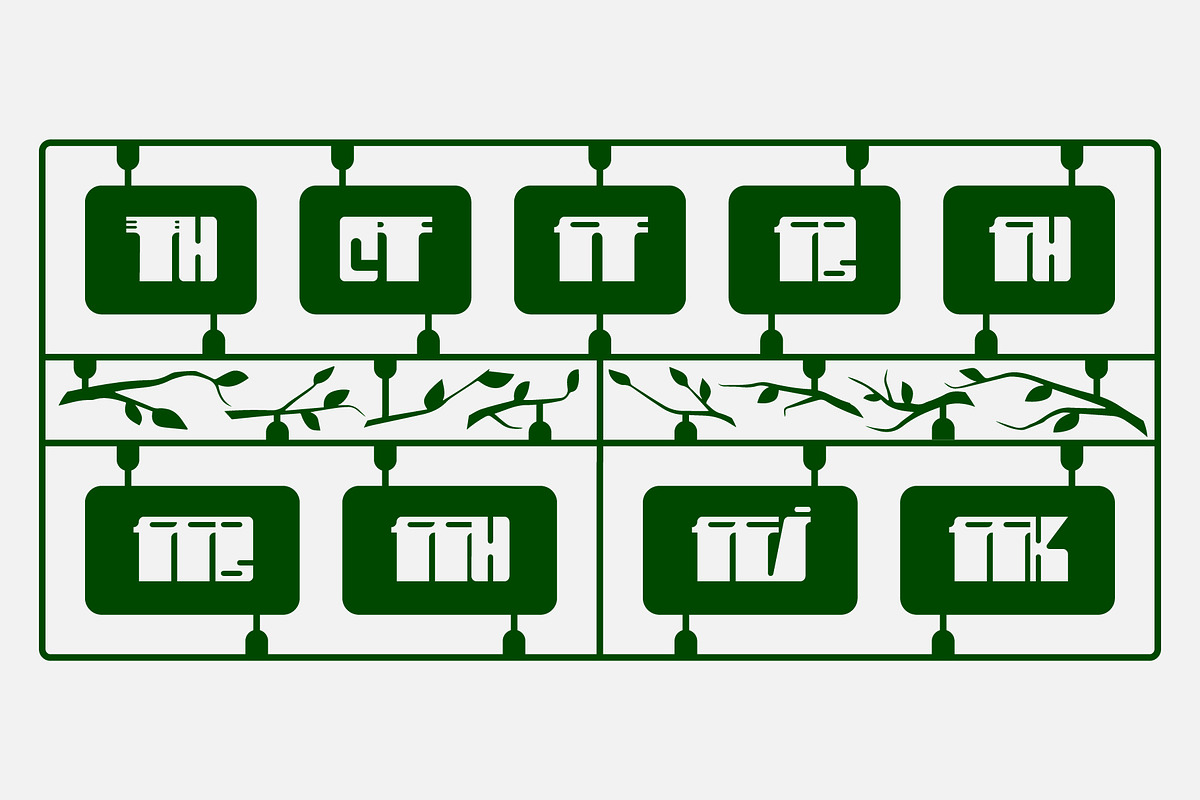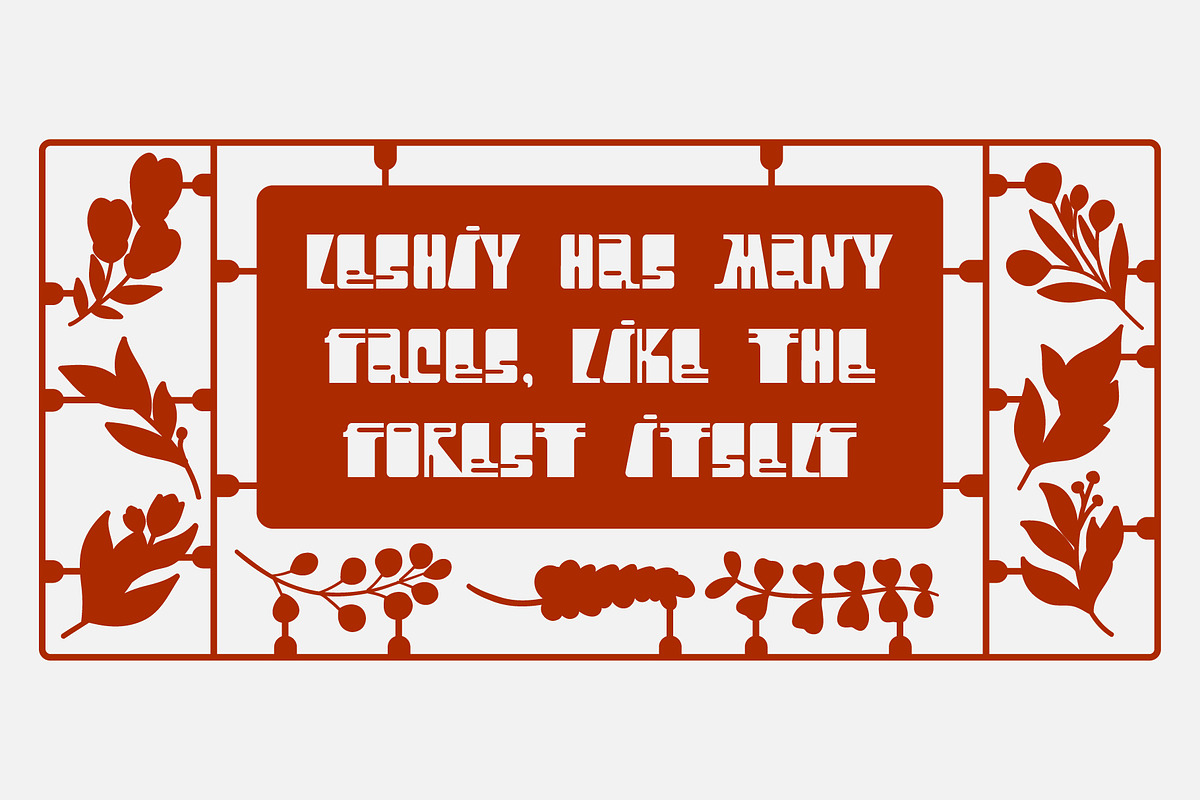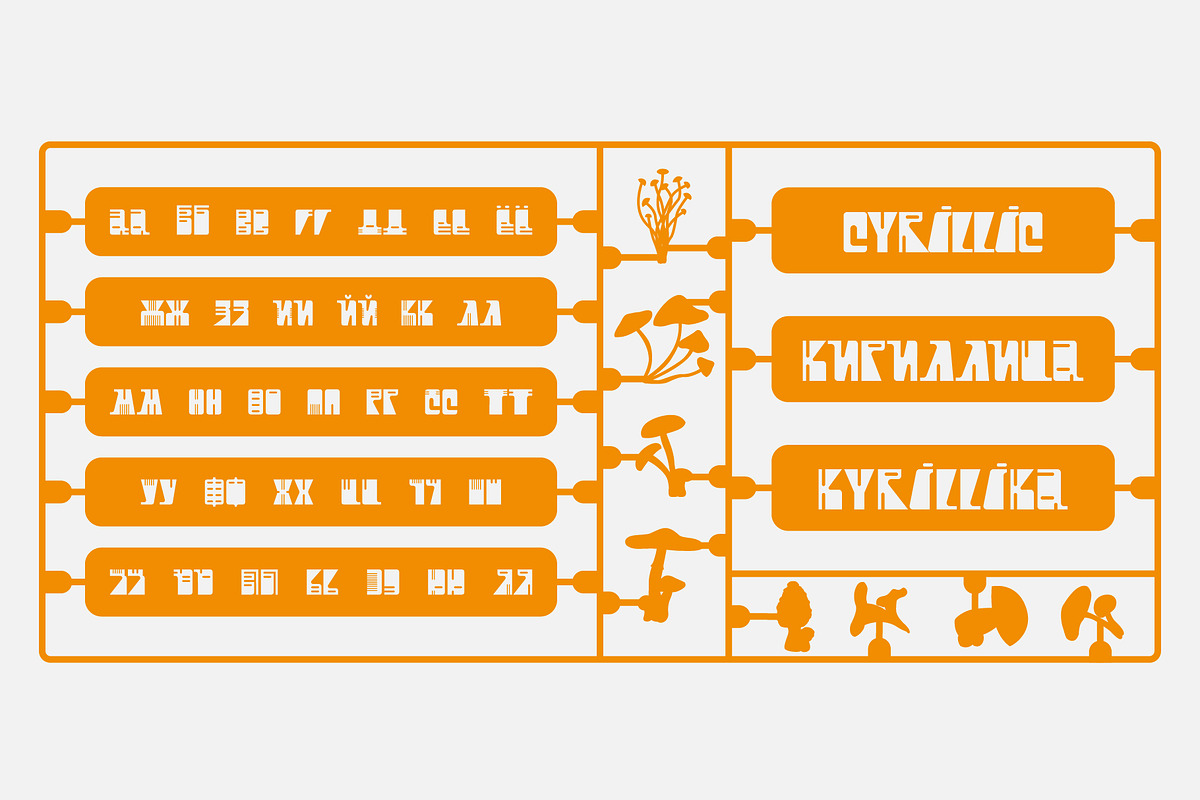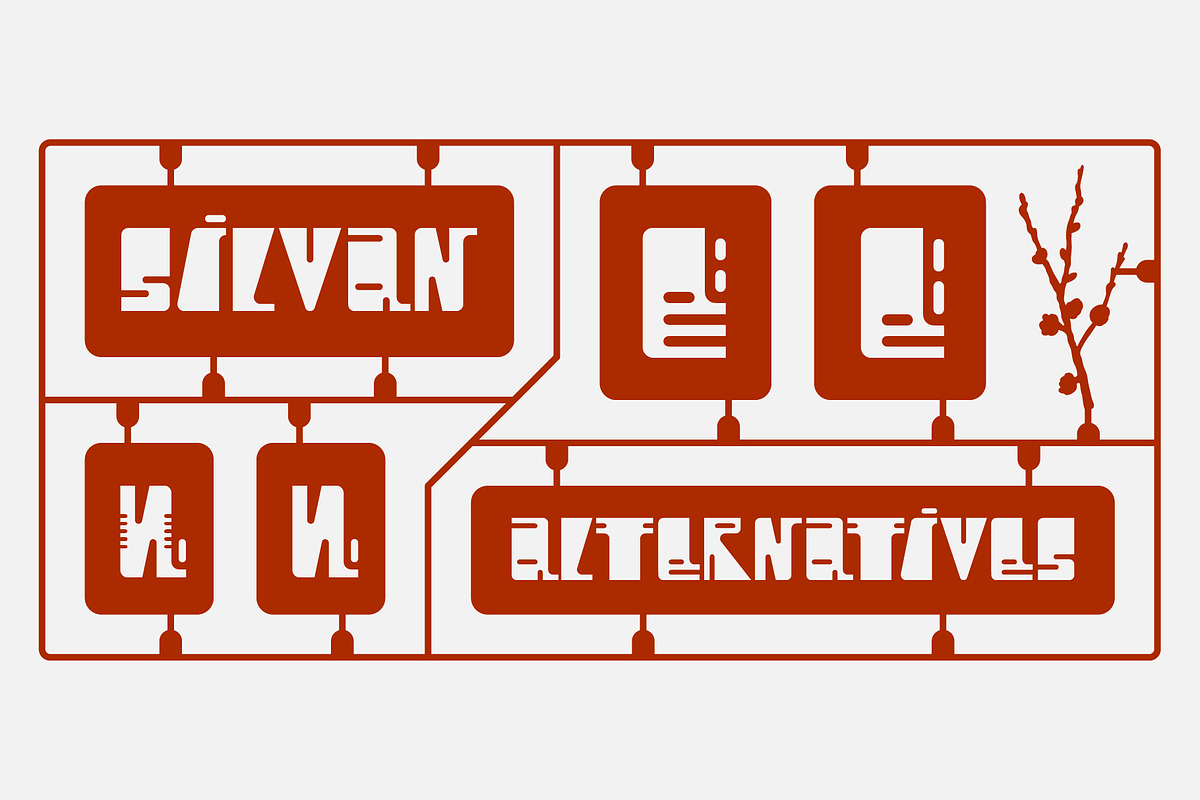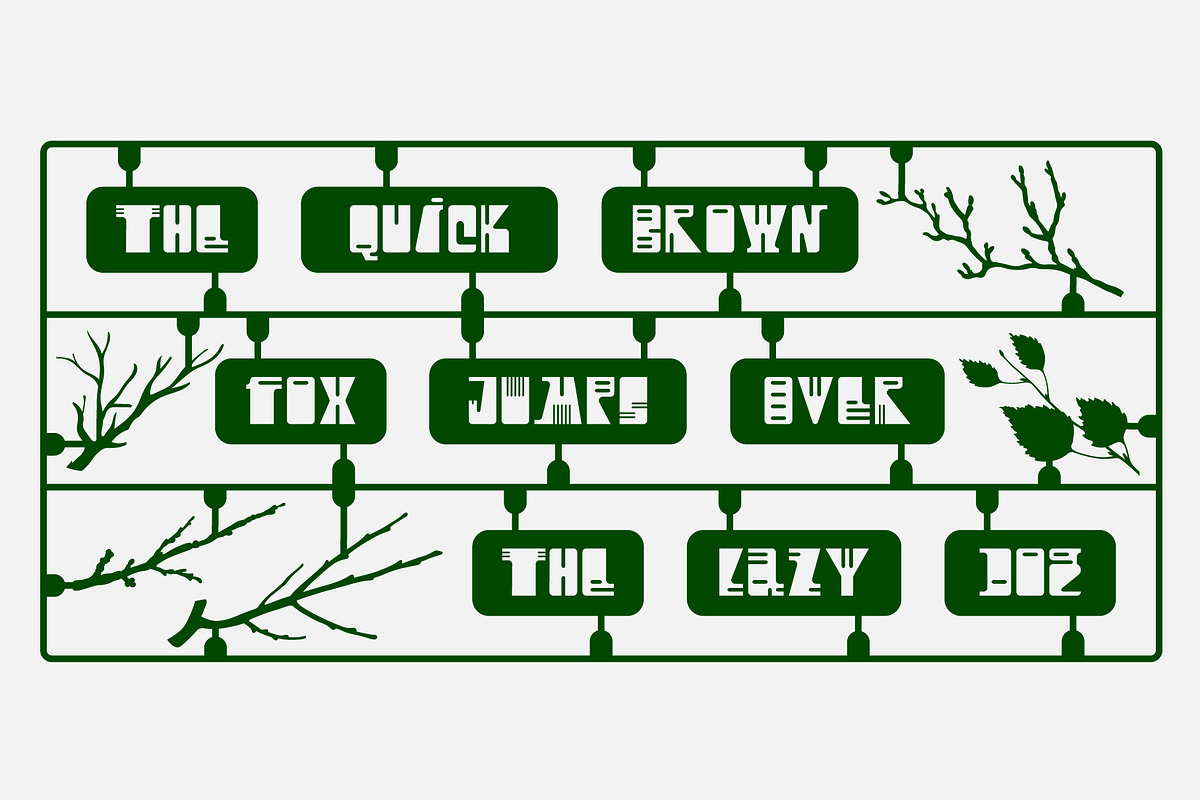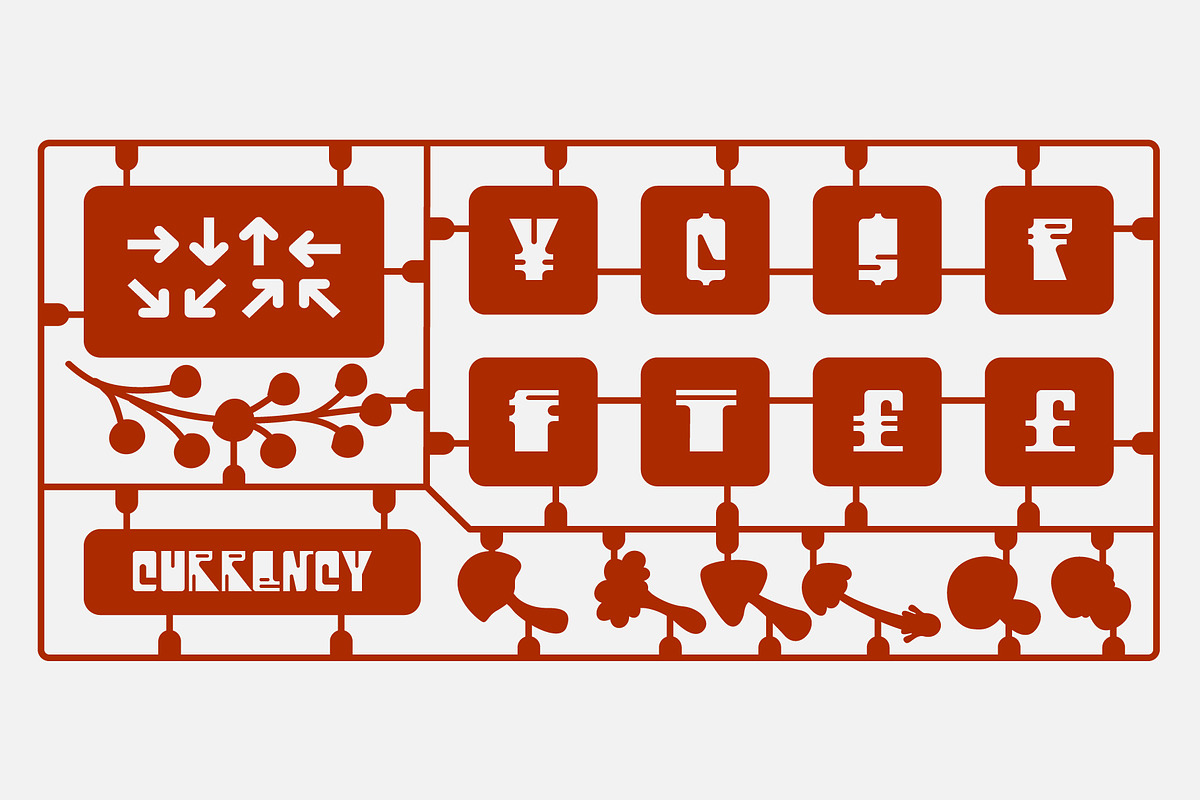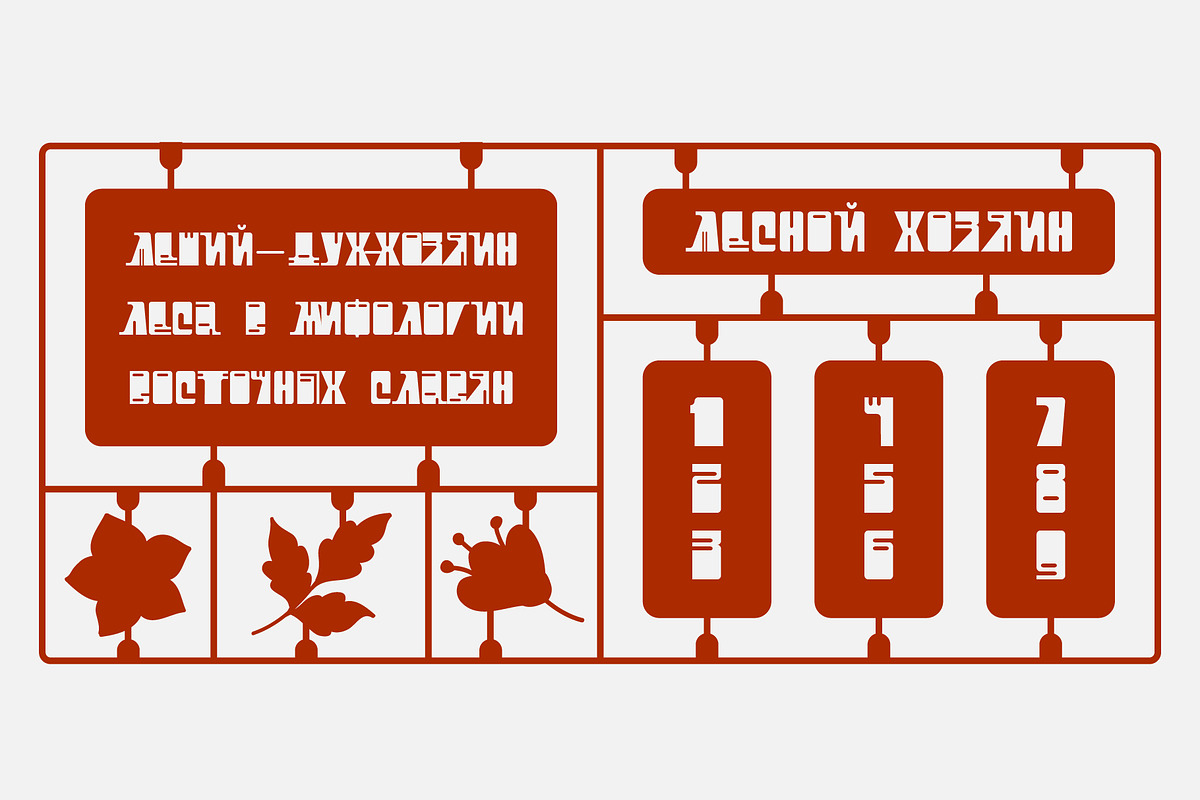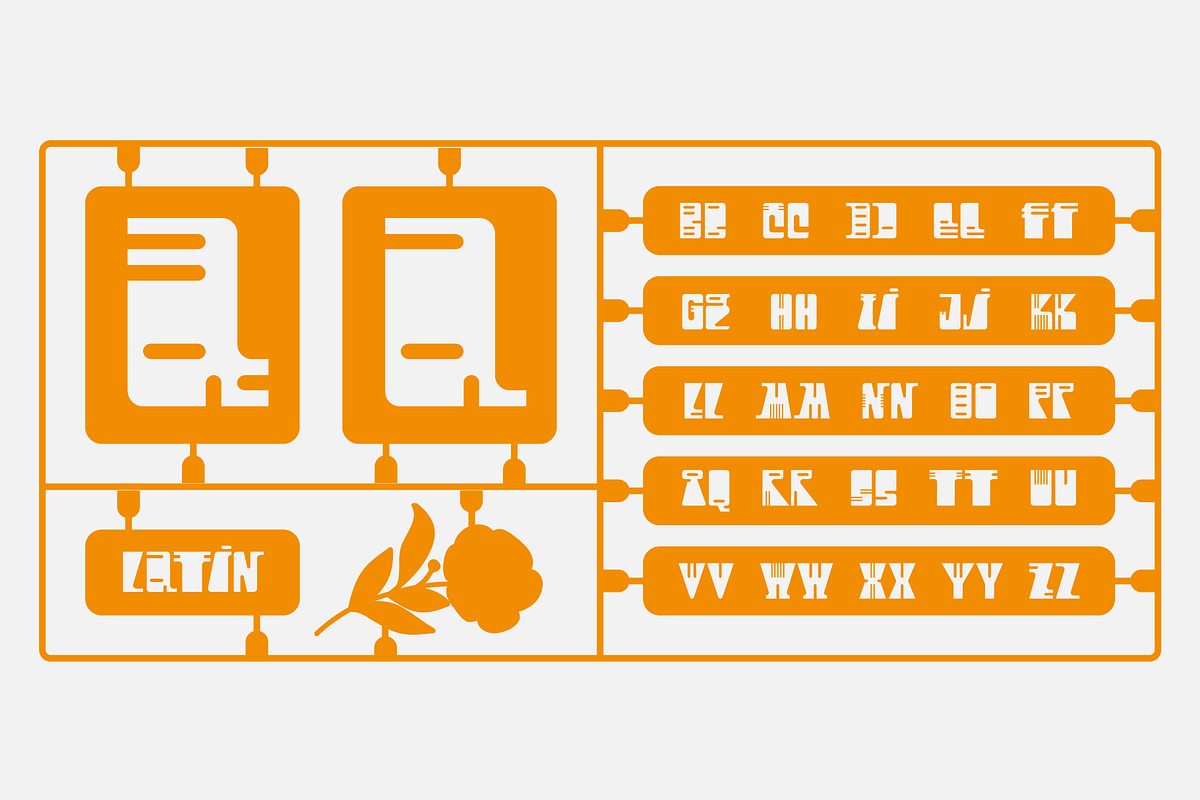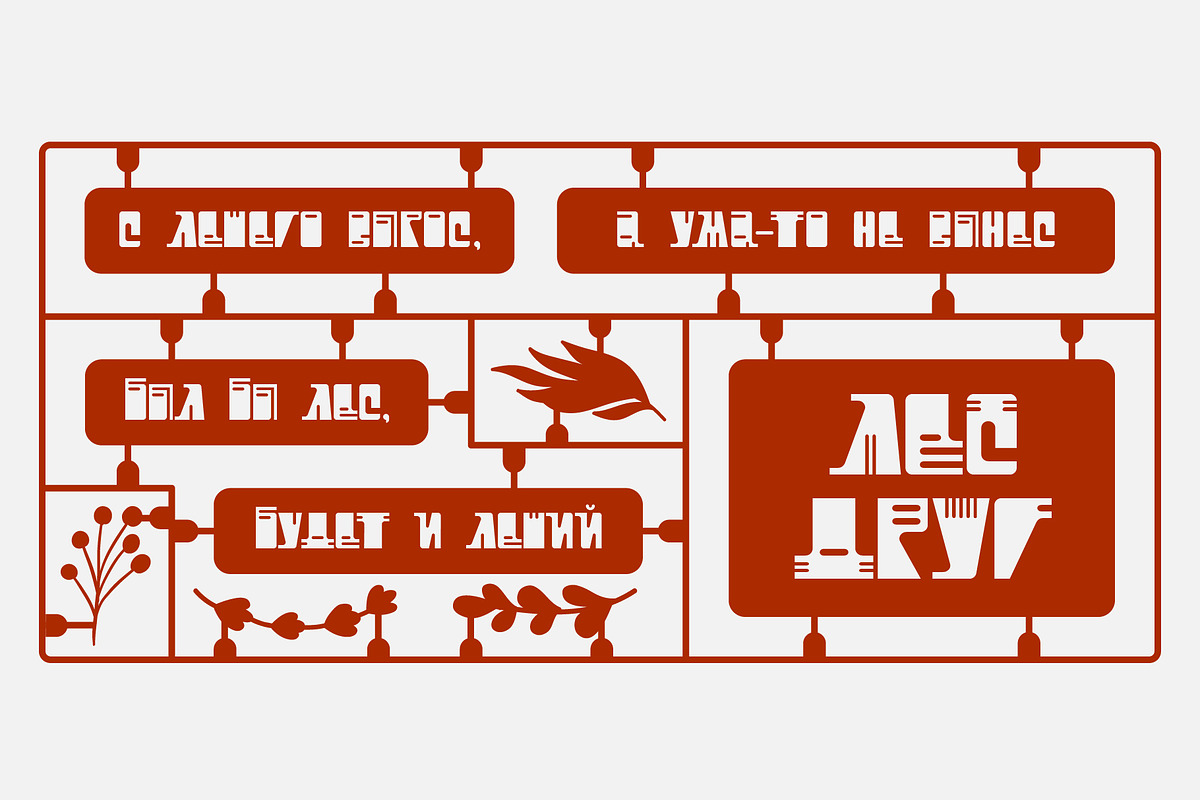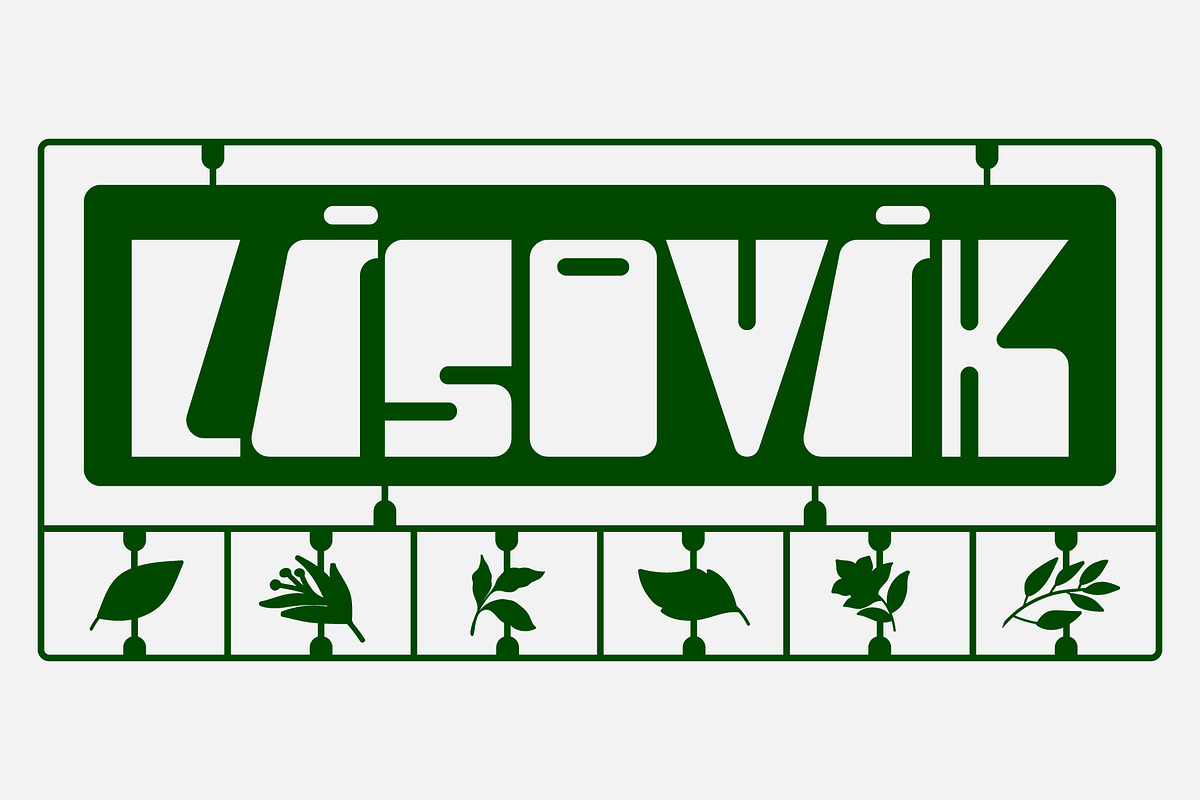
SK Lisovik — Monumental Typeface
SK Lisovik is an authentic monumental font inspired by ancient Slavic legends and fairy tales. This font combines geometric and natural forms, each of its symbols creates a unique image of a fabulous creature that hides in the forest thicket. The SK Leshiy font has a basic and alternative character sets that allow you to expand the font's capabilities and its decorative functions. The font supports a multilingual set and an extended table of Cyrillic and Latin characters.